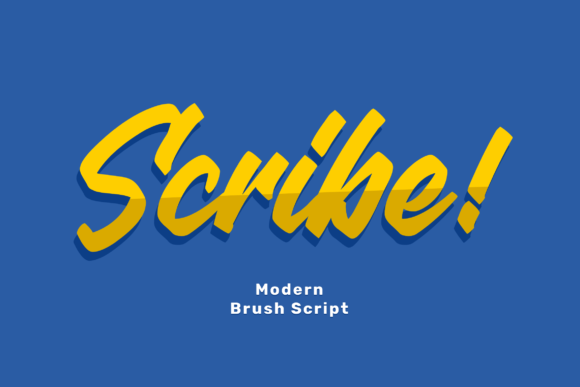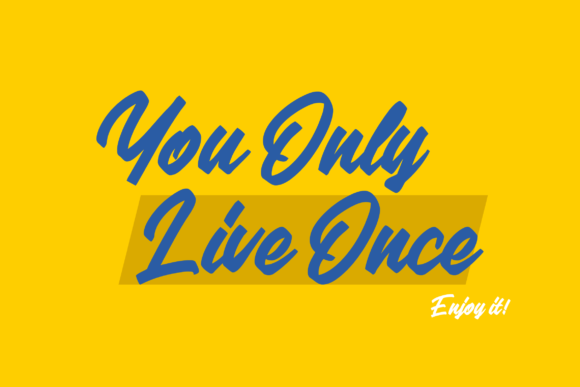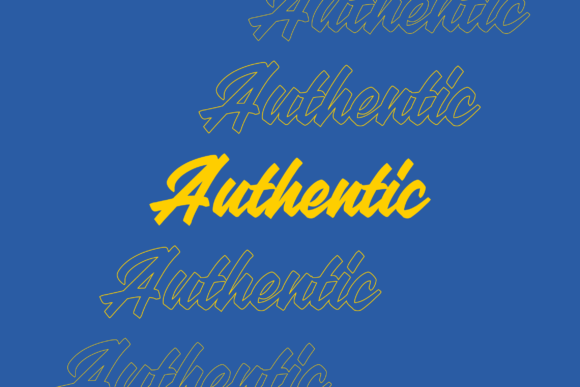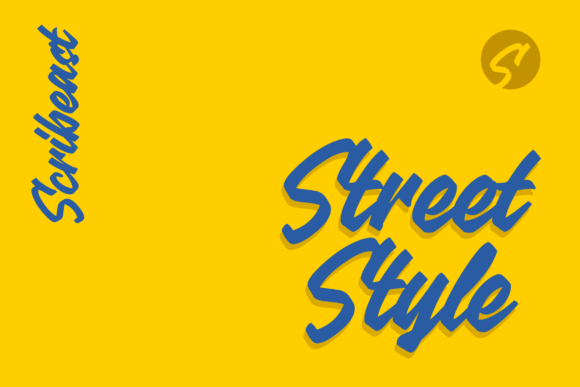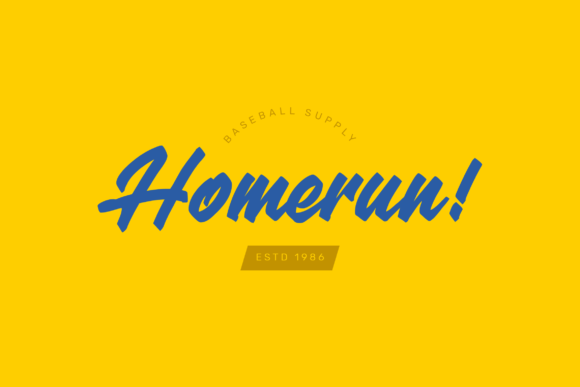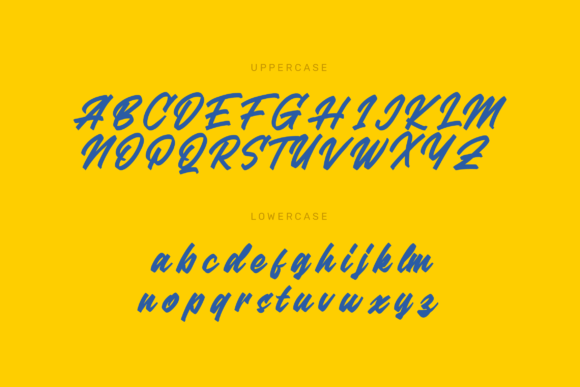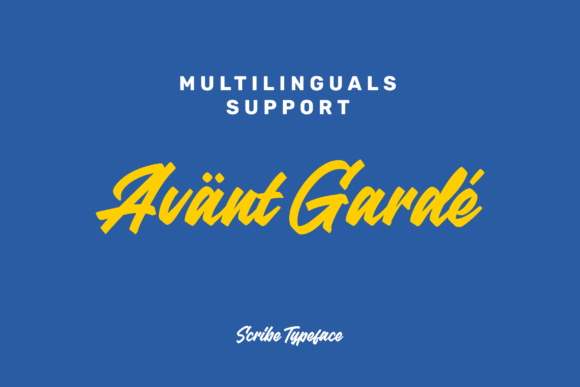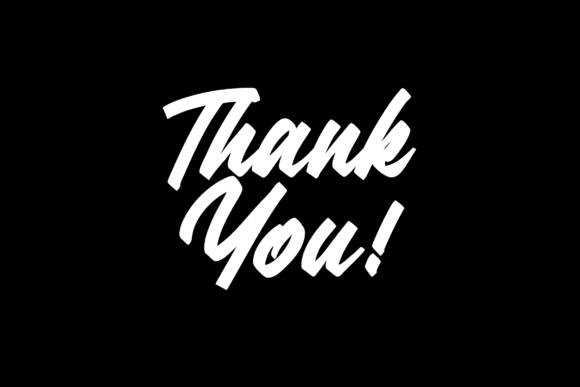
Scribe Font
About Scribe Font
Scribe is a stunning and bold handwritten font that adds a stylish touch to your headlines and logotype projects. Its unique and distinct design exudes strength, confidence, and dynamism, making it an excellent choice for creating impactful and memorable visuals.
With its bold and expressive strokes, Scribe captures attention and adds a touch of nostalgia to your designs. The font’s handcrafted appearance evokes a sense of authenticity and individuality, giving your projects a distinct character and personality. Whether you’re working on branding, packaging, posters, or any other design where a bold statement is needed, Scribe delivers.
The strong and confident nature of Scribe makes it particularly suitable for headlines and titles. Its bold letterforms command attention and create a visual impact, making your message stand out. Whether it’s for magazine covers, website banners, or social media posts, Scribe adds a touch of energy and style to your typography.
In logotype projects, Scribe brings a sense of authenticity and nostalgia. Its handwritten aesthetic gives your logo a unique and personalized touch, setting it apart from more traditional typefaces. Whether you’re designing a logo for a retro-inspired brand, a creative studio, or a hipster coffee shop, Scribe adds a dash of character and personality.
The font’s nostalgic charm also makes it a great choice for various design projects that aim to evoke a vintage or retro vibe. Its bold and expressive nature pairs well with vintage-inspired illustrations, old photographs, and textured backgrounds, creating a cohesive and captivating composition.
Scribe’s versatility extends beyond headlines and logotypes. Its strong and confident appearance allows it to be used in various creative projects, such as packaging, posters, invitations, and more. With Scribe, you can infuse your designs with a bold and dynamic energy that captures attention and leaves a lasting impression.
In summary, Scribe is a gorgeous and bold handwritten font that adds a stylish touch to your headlines and logotype projects. Its strong and confident appearance, combined with its nostalgic character, makes it a versatile choice for a wide range of design applications. Choose Scribe to create visually impactful and memorable designs that resonate with your audience.